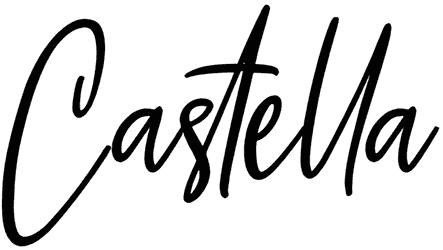
Castella Font
Soft, delicate, and glamorous are the only suitable words we could find for describing a versatile calligraphy font such as Castella that comes with a sophisticated flow and surprises the audience with a sense of personalization, art, precision, or momentum.
Due to its cursive style, it looks insanely perfect for a wide set of graphic projects, including greeting cards, book covers, business cards, flyers, or social media posts. Just bear in mind that numbers are not included in this masterpiece.